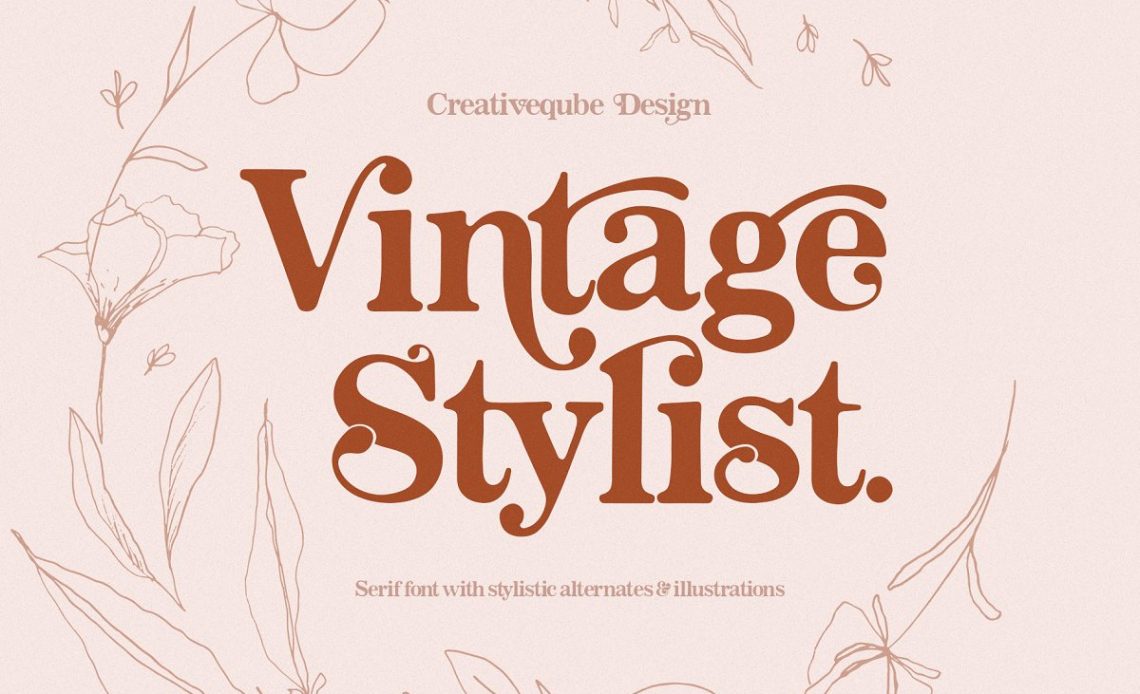
Introducing Vintage Stylist Font + Florals, the ultimate font collection that will elevate your design projects to new heights! Created by the talented Lucy, this modern vintage serif font is perfect for all your creative needs. Whether you're designing logos, quotes, wedding invites, blog posts, or captivating Instagram posts, Vintage Stylist is the font that will make your work stand out from the crowd.
What sets Vintage Stylist apart is its extensive collection of alternates and ligatures. With a full set of lowercase and uppercase alternates for each letter, as well as extra ending letters, this font allows you to customize and add a unique touch to every word you create. Say goodbye to boring and predictable typography – Vintage Stylist gives you the freedom to express your creativity like never before.
But that's not all! When you download Vintage Stylist, you also get access to nearly 50 bonus floral illustrations. These stunning PNG files will take your designs to the next level, allowing you to effortlessly create your own logos, branding materials, cards, invites, and more. The possibilities are endless with this versatile collection.
Get ready to unleash your creativity with Vintage Stylist Font + Florals. This font collection is not just about letters and illustrations – it's about emotions, impact, and capturing the attention of your audience. Download Vintage Stylist today and experience the power of captivating design.